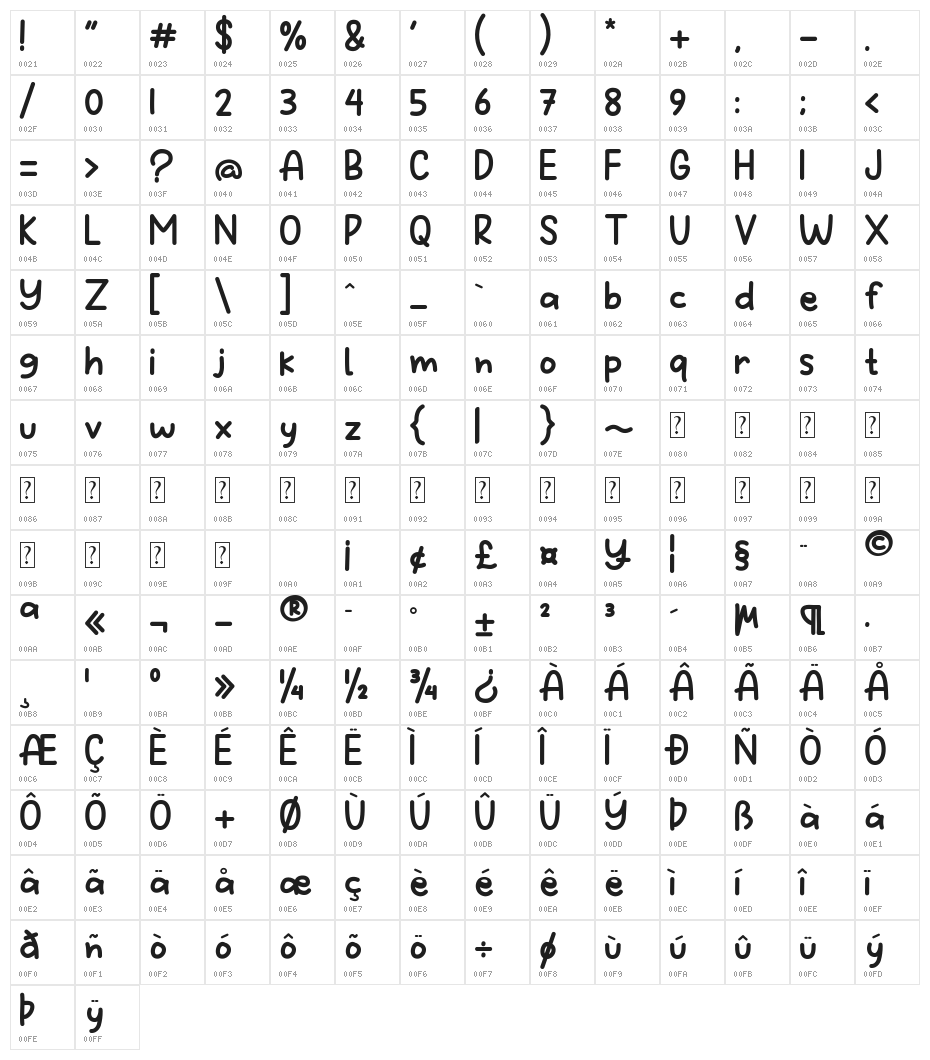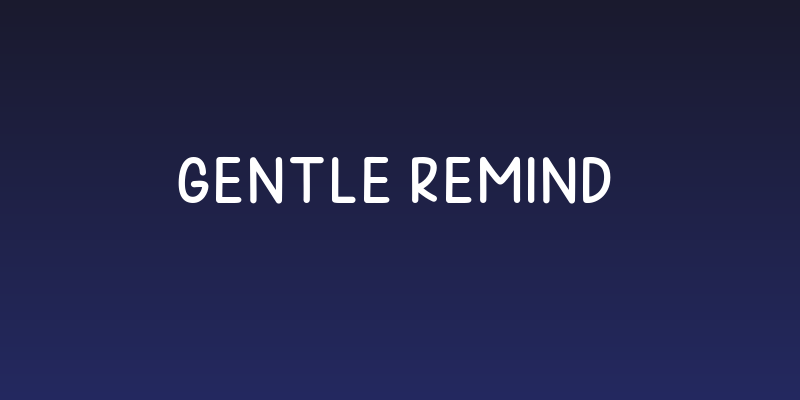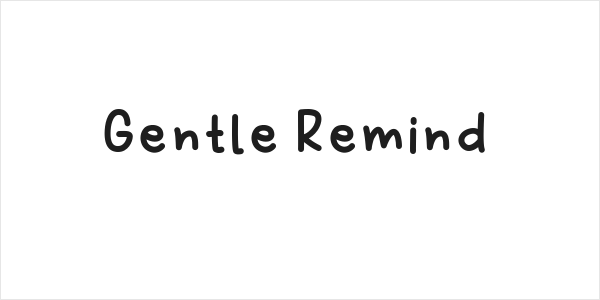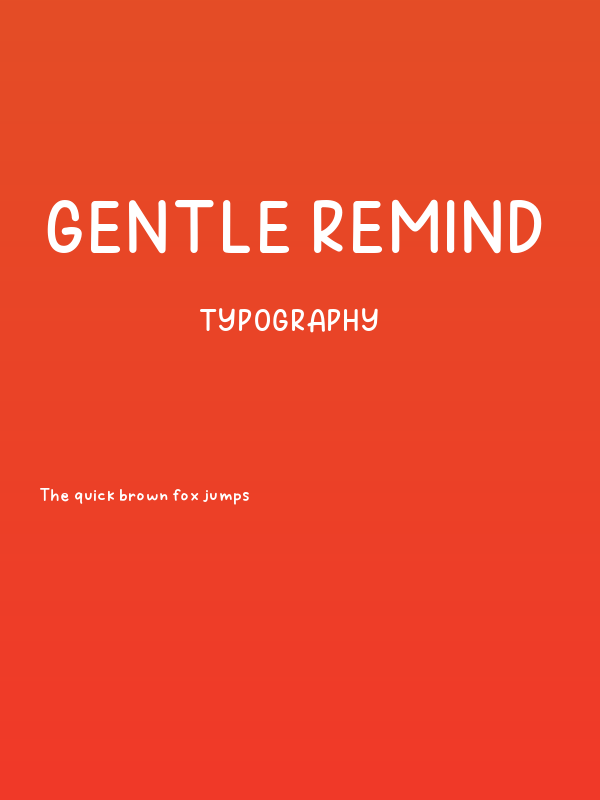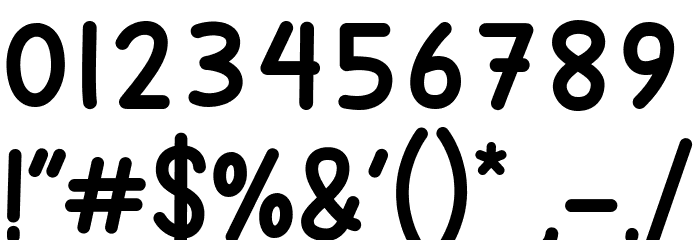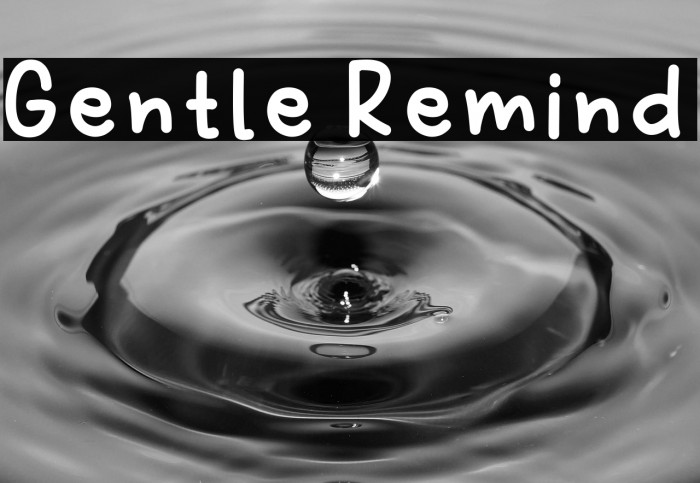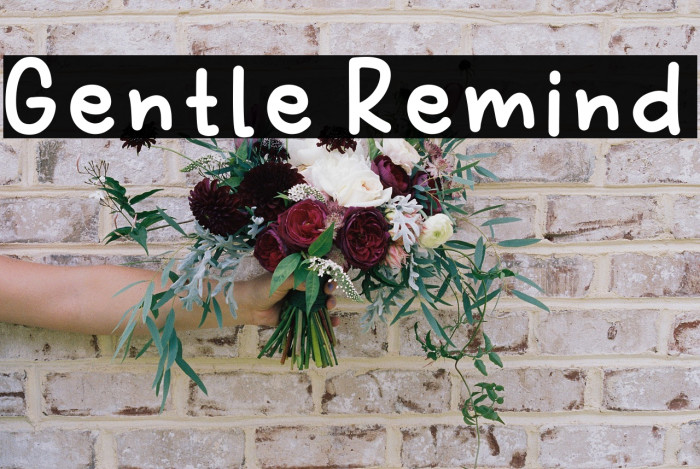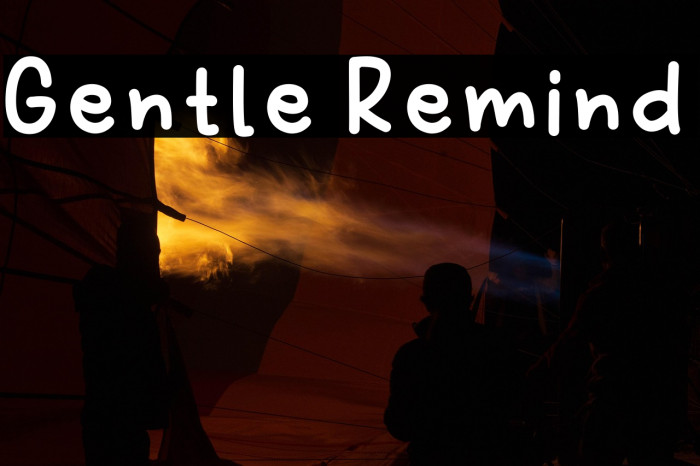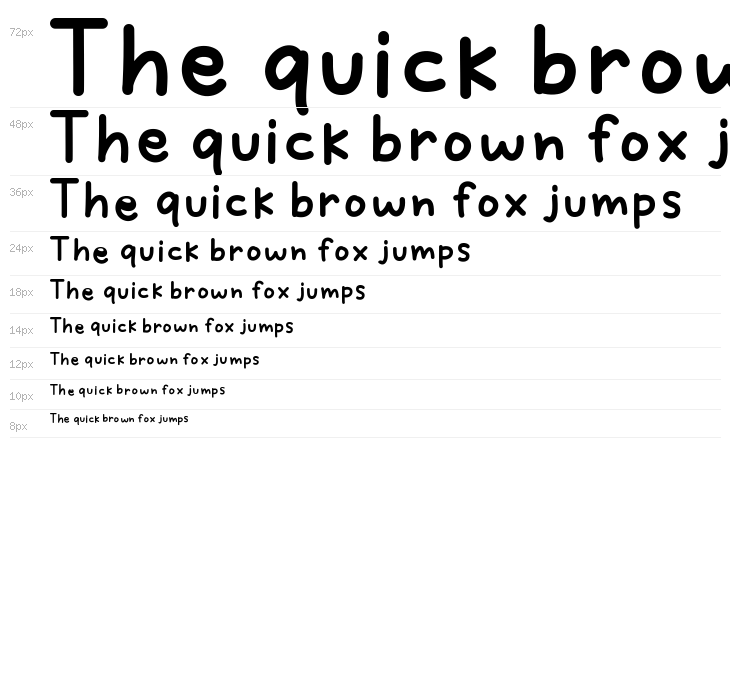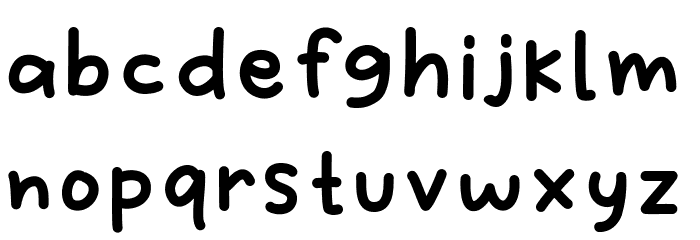
Gentle Remind Font
Gentle Remind Description
This font features a playful, handwritten style with rounded edges and a casual appearance. The characters are evenly spaced, with a consistent stroke width that gives it a friendly and approachable look. The uppercase and lowercase letters are distinct yet harmonious, making it versatile for various design needs. The numbers and special characters maintain the same playful aesthetic, ensuring a cohesive look across all text elements. This font is perfect for projects that require a personal touch or a fun, informal vibe.
| Proposed Projects | Ideal for children's books, greeting cards, playful branding, and social media graphics. |